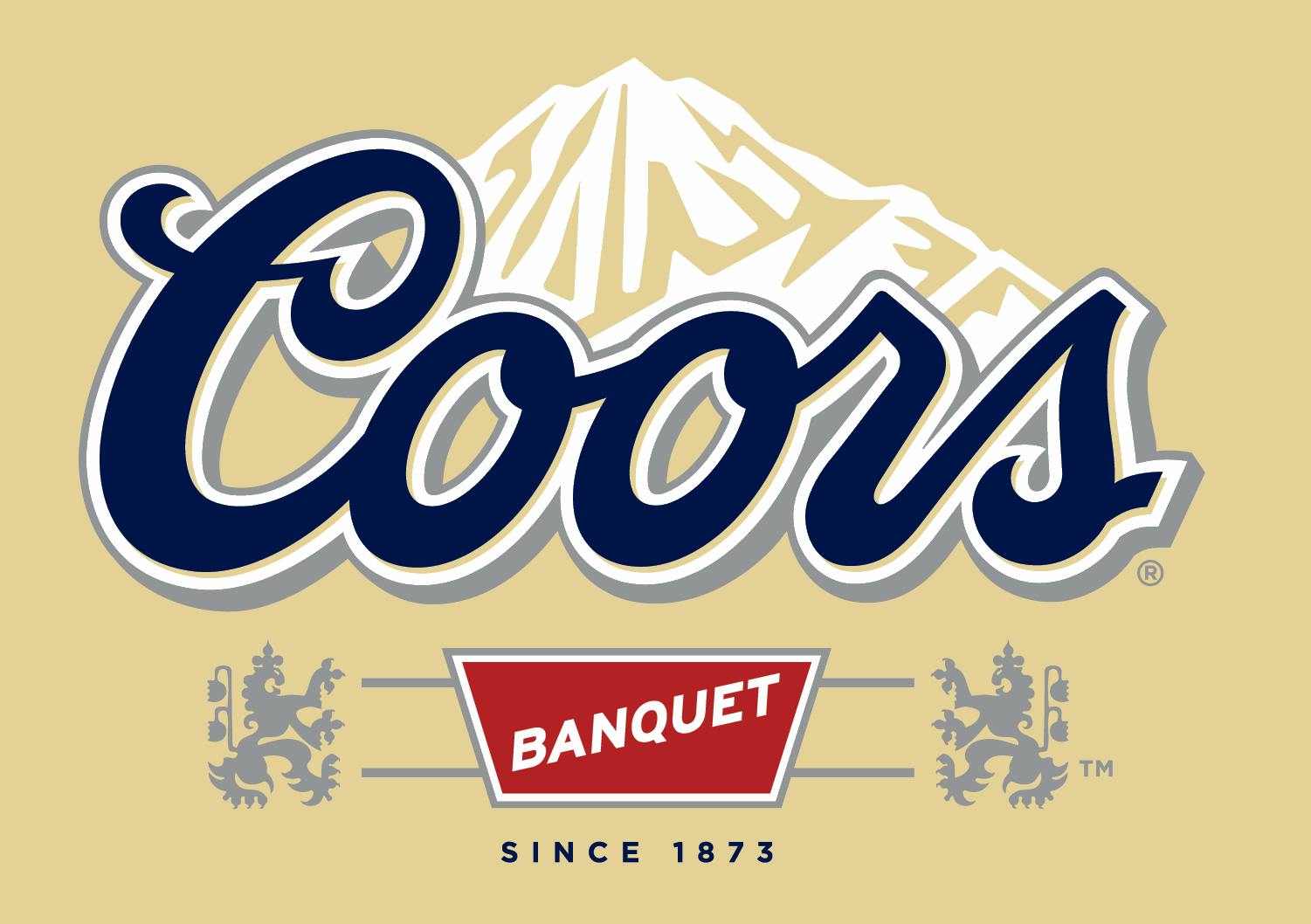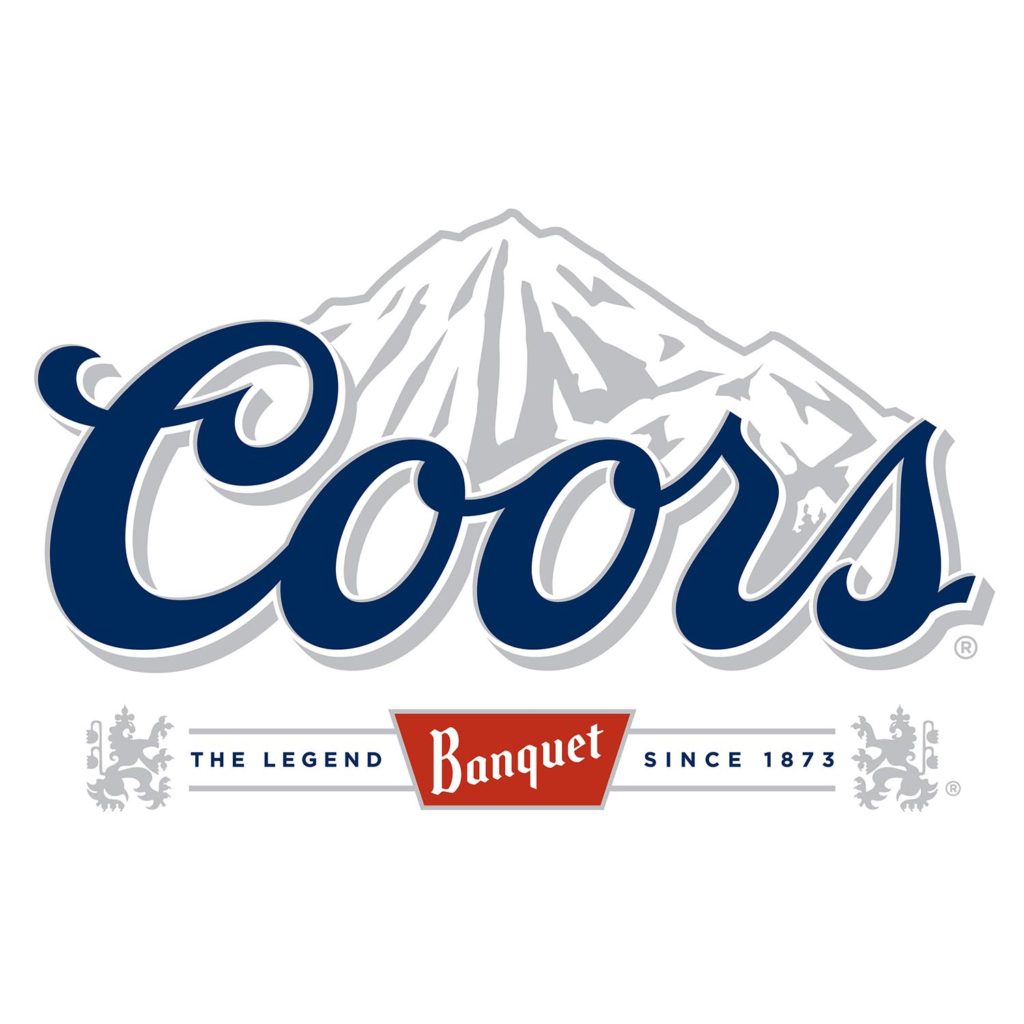
Coors Banquet Font
Coors Banquet Font - The coors brewing company created it in the 1960s, and is still used today. Lettering, logo and font designer based in toronto. Here you can download yourself a copy of the coors light font for free. Try the best coors light font generator & convert your text into images with many styles to choose from. Download coors light font font free on fontbolt. Coors banquet font is a typeface that is one of the most recognizable fonts used on beer cans and bottles. Coors script font is a modern brush script inspired from retro font style. Use our free coors light font generator tool to create awesome images and designs.
Coors banquet font is a typeface that is one of the most recognizable fonts used on beer cans and bottles. Use our free coors light font generator tool to create awesome images and designs. Here you can download yourself a copy of the coors light font for free. Try the best coors light font generator & convert your text into images with many styles to choose from. Lettering, logo and font designer based in toronto. Download coors light font font free on fontbolt. The coors brewing company created it in the 1960s, and is still used today. Coors script font is a modern brush script inspired from retro font style.
Coors script font is a modern brush script inspired from retro font style. The coors brewing company created it in the 1960s, and is still used today. Use our free coors light font generator tool to create awesome images and designs. Here you can download yourself a copy of the coors light font for free. Lettering, logo and font designer based in toronto. Download coors light font font free on fontbolt. Coors banquet font is a typeface that is one of the most recognizable fonts used on beer cans and bottles. Try the best coors light font generator & convert your text into images with many styles to choose from.
Here you can download yourself a copy of the coors light font for free. The coors brewing company created it in the 1960s, and is still used today. Lettering, logo and font designer based in toronto. Coors script font is a modern brush script inspired from retro font style. Use our free coors light font generator tool to create awesome.
Coors script font is a modern brush script inspired from retro font style. Download coors light font font free on fontbolt. The coors brewing company created it in the 1960s, and is still used today. Lettering, logo and font designer based in toronto. Try the best coors light font generator & convert your text into images with many styles to.
Coors banquet font is a typeface that is one of the most recognizable fonts used on beer cans and bottles. The coors brewing company created it in the 1960s, and is still used today. Here you can download yourself a copy of the coors light font for free. Lettering, logo and font designer based in toronto. Coors script font is.
Coors script font is a modern brush script inspired from retro font style. Use our free coors light font generator tool to create awesome images and designs. Coors banquet font is a typeface that is one of the most recognizable fonts used on beer cans and bottles. The coors brewing company created it in the 1960s, and is still used.
Lettering, logo and font designer based in toronto. Coors banquet font is a typeface that is one of the most recognizable fonts used on beer cans and bottles. Download coors light font font free on fontbolt. The coors brewing company created it in the 1960s, and is still used today. Coors script font is a modern brush script inspired from.
The coors brewing company created it in the 1960s, and is still used today. Download coors light font font free on fontbolt. Coors banquet font is a typeface that is one of the most recognizable fonts used on beer cans and bottles. Try the best coors light font generator & convert your text into images with many styles to choose.
Lettering, logo and font designer based in toronto. Coors script font is a modern brush script inspired from retro font style. The coors brewing company created it in the 1960s, and is still used today. Here you can download yourself a copy of the coors light font for free. Coors banquet font is a typeface that is one of the.
Use our free coors light font generator tool to create awesome images and designs. Try the best coors light font generator & convert your text into images with many styles to choose from. Lettering, logo and font designer based in toronto. Here you can download yourself a copy of the coors light font for free. Download coors light font font.
Coors script font is a modern brush script inspired from retro font style. Here you can download yourself a copy of the coors light font for free. Lettering, logo and font designer based in toronto. The coors brewing company created it in the 1960s, and is still used today. Use our free coors light font generator tool to create awesome.
The Coors Brewing Company Created It In The 1960S, And Is Still Used Today.
Coors banquet font is a typeface that is one of the most recognizable fonts used on beer cans and bottles. Try the best coors light font generator & convert your text into images with many styles to choose from.